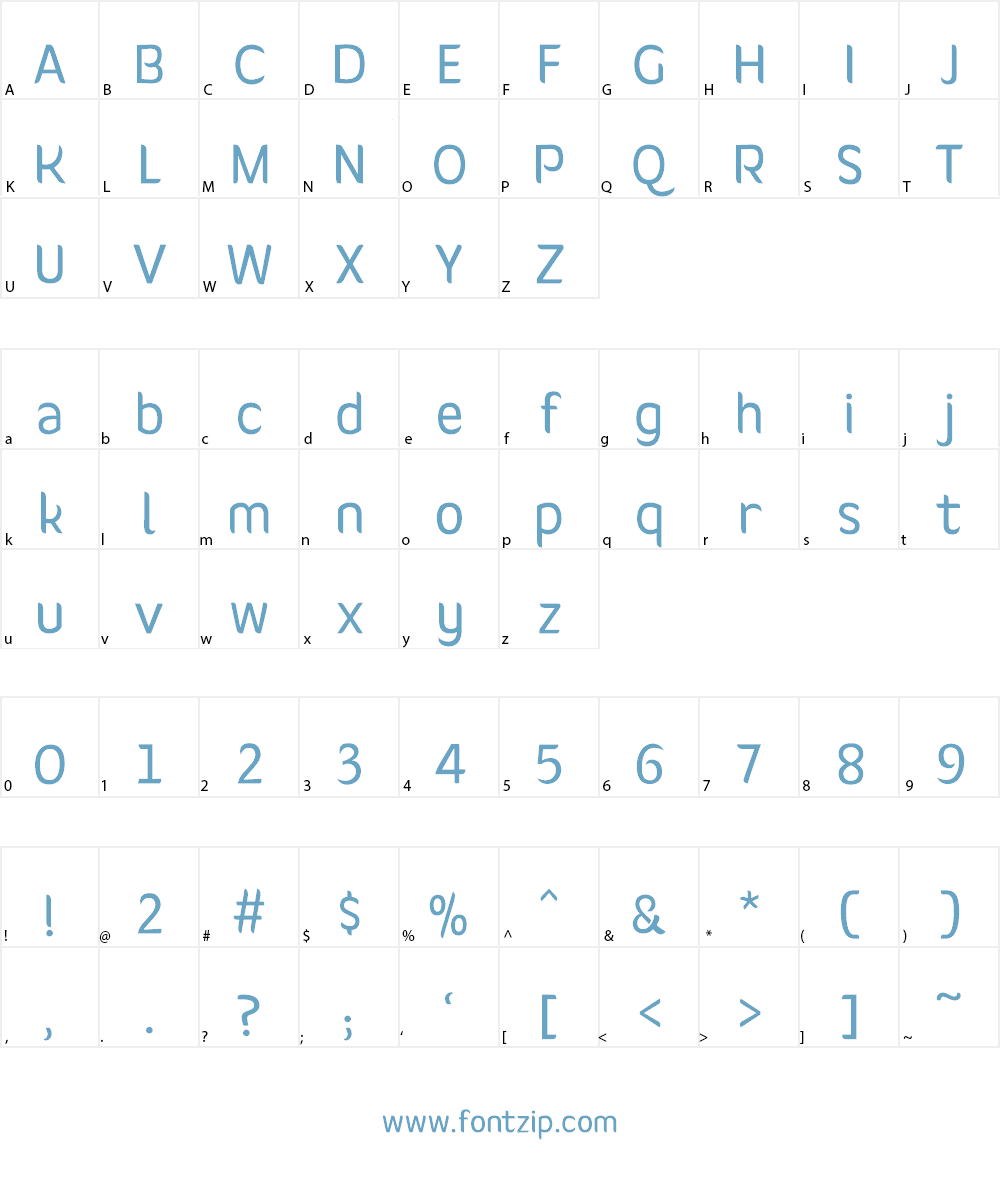
has 2 meanings one is to be a tribute to the great artist Hans Rudolf Giger (Giger)
Aliens and Author of several books and also a typeface that was special for brand design